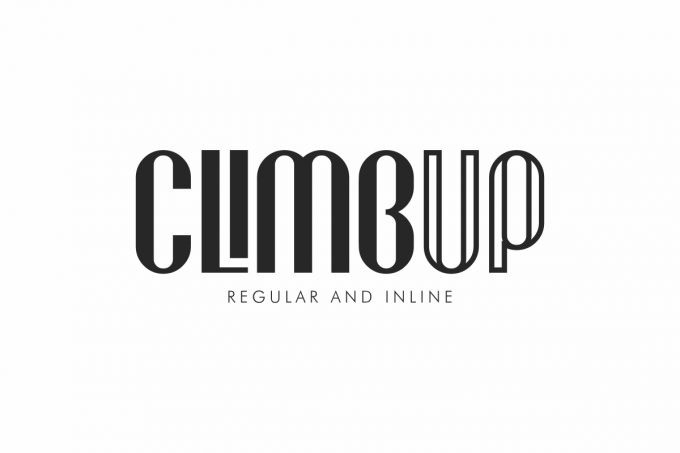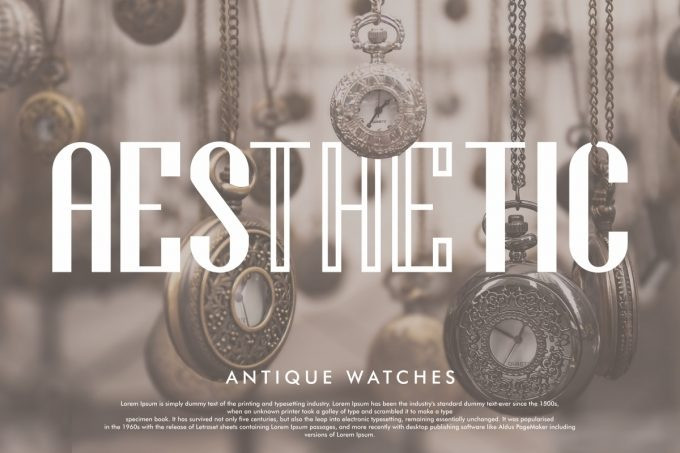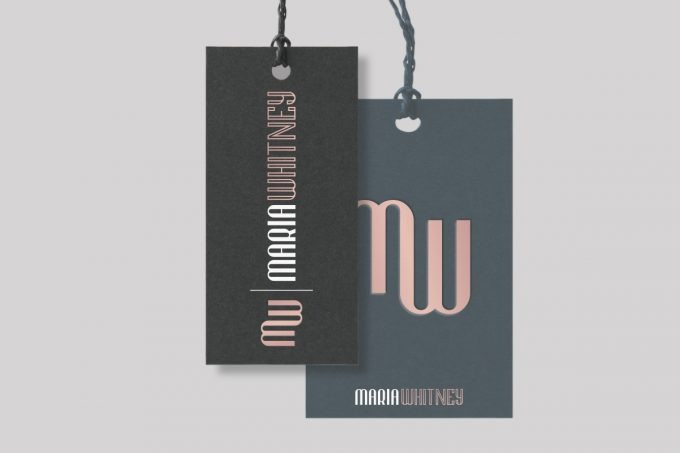
Climbup Sans Serif Font
Climbup is a font duo font famliy with four different styles. Originally made by NihStudio Font Designers : Nouval, Widi and Sarah.
Handcrafted here in our Studio , Indonesia. CLIMBUP will be great for any projects (require extended license) including : branding, logo, stationery, business card, signage, flyer, brochure etc.
The Climbup has two styles : Regular and Inline style